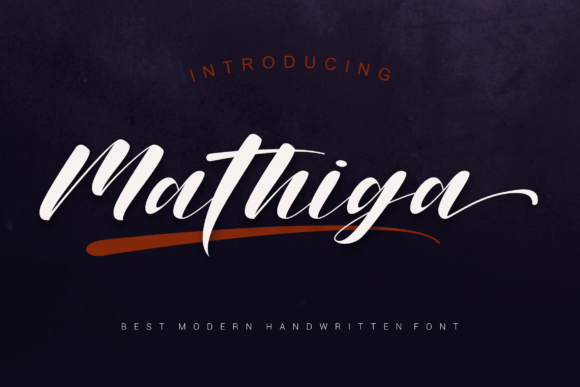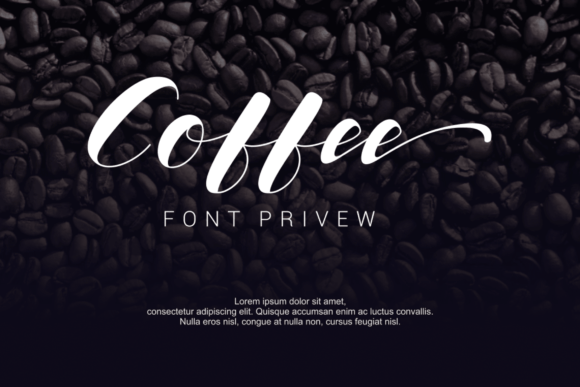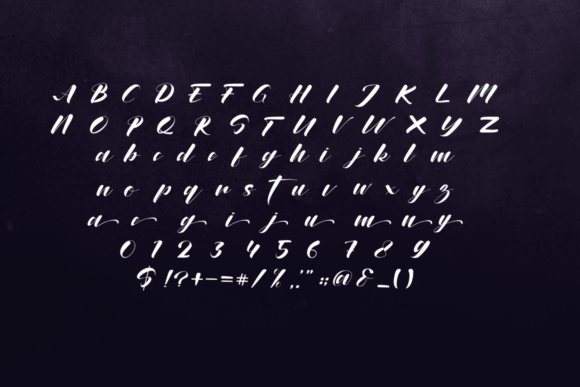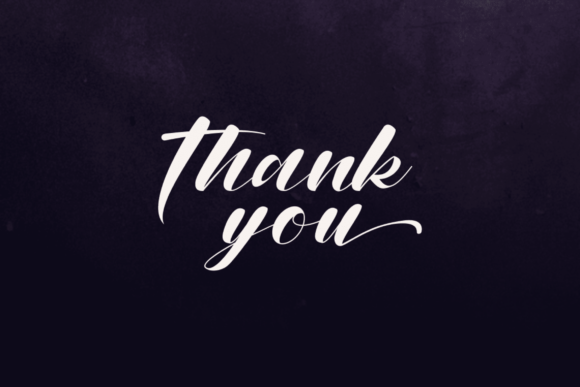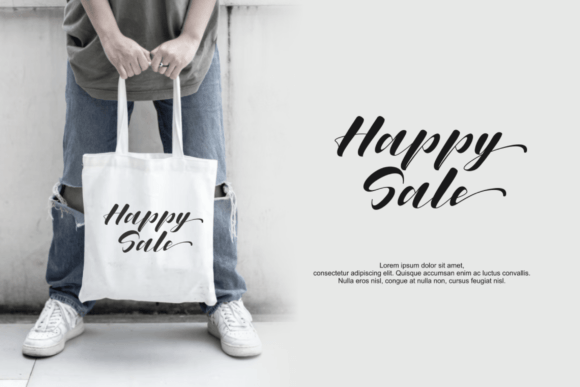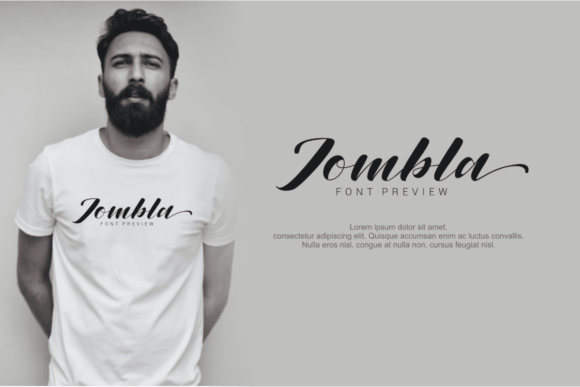
Mathiga Font
About Mathiga Font
Mathiga is a bold and genuine handwritten font characterized by its commanding and impactful appearance. This versatile font suits a diverse array of branding projects, including logo design, t-shirt printing, export materials, and various other creative applications. With its bold and authentic style, Mathiga is engineered to make a strong visual statement and excel across a wide spectrum of contexts.
Bold and Authentic Aesthetic
The font’s notable strength lies in its bold and authentic handwritten aesthetic. It exudes confidence and authenticity. Therefore, it is particularly well-suited for projects aiming to establish a powerful and memorable visual identity.
Logo Design
In logo design, Mathiga offers a commanding and attention-grabbing choice. Its bold appearance facilitates the creation of logos that are visually striking and convey trustworthiness. It introduces a unique touch that sets your brand apart.
T-Shirt Designs
For t-shirt designs, Mathiga’s boldness demands attention and makes a significant statement. It is ideal for conveying impactful messages or designs that resonate with a bold audience.
Export Projects
In export projects, Mathiga’s authenticity helps forge strong connections with customers. Whether you’re working on product labels, packaging, or promotional materials, this font adds authority and genuine appeal to your efforts.
Versatility in Design
The versatility of Mathiga allows it to excel in various contexts. Its bold presence ensures that it stands out and makes a statement. This quality makes it valuable for diverse creative projects.
In summary, Mathiga is more than just a font; it’s a dynamic design tool that combines boldness with authenticity. Its powerful handwritten style makes it an excellent choice for branding projects, t-shirt designs, exports, and beyond. Embrace Mathiga, and experience how it elevates your creative work with its bold character.
This font also works well for other applications like social media graphics or event banners. Its adaptability ensures that no matter the project, Mathiga will add flair that captivates viewers. Additionally, its clean lines make it suitable for both digital media and print formats.